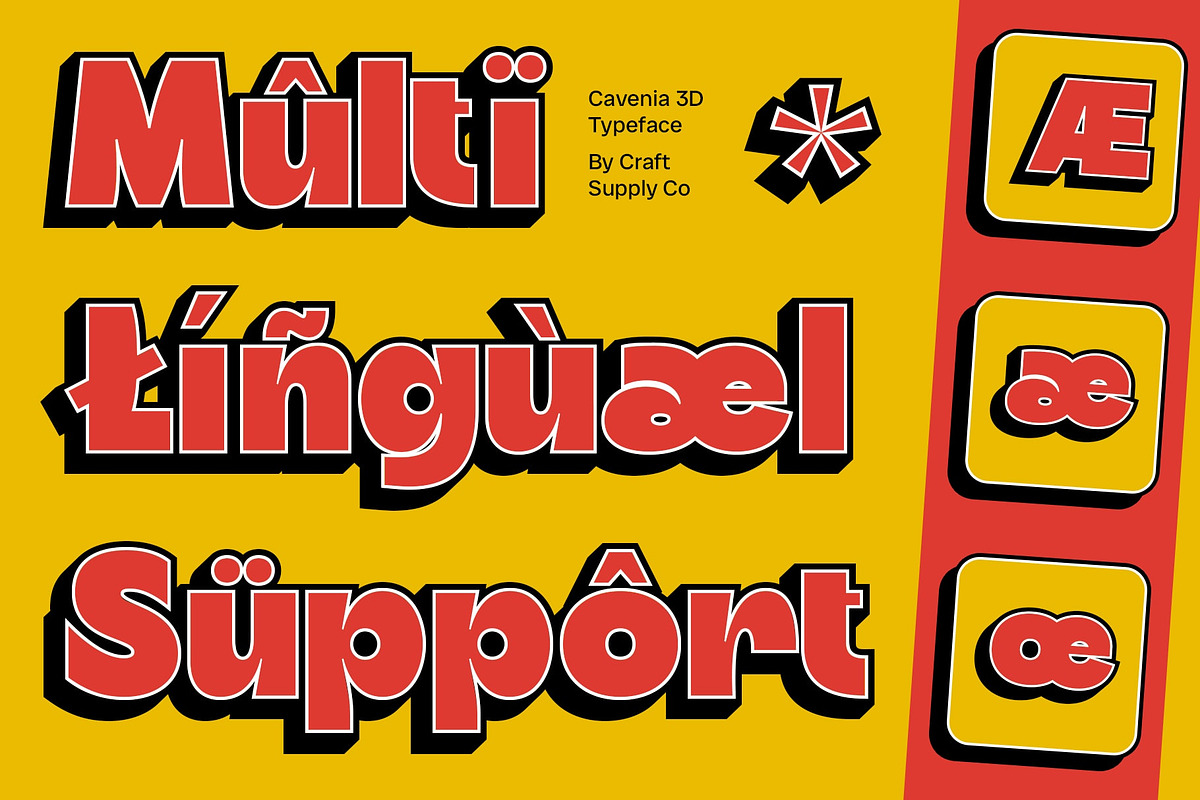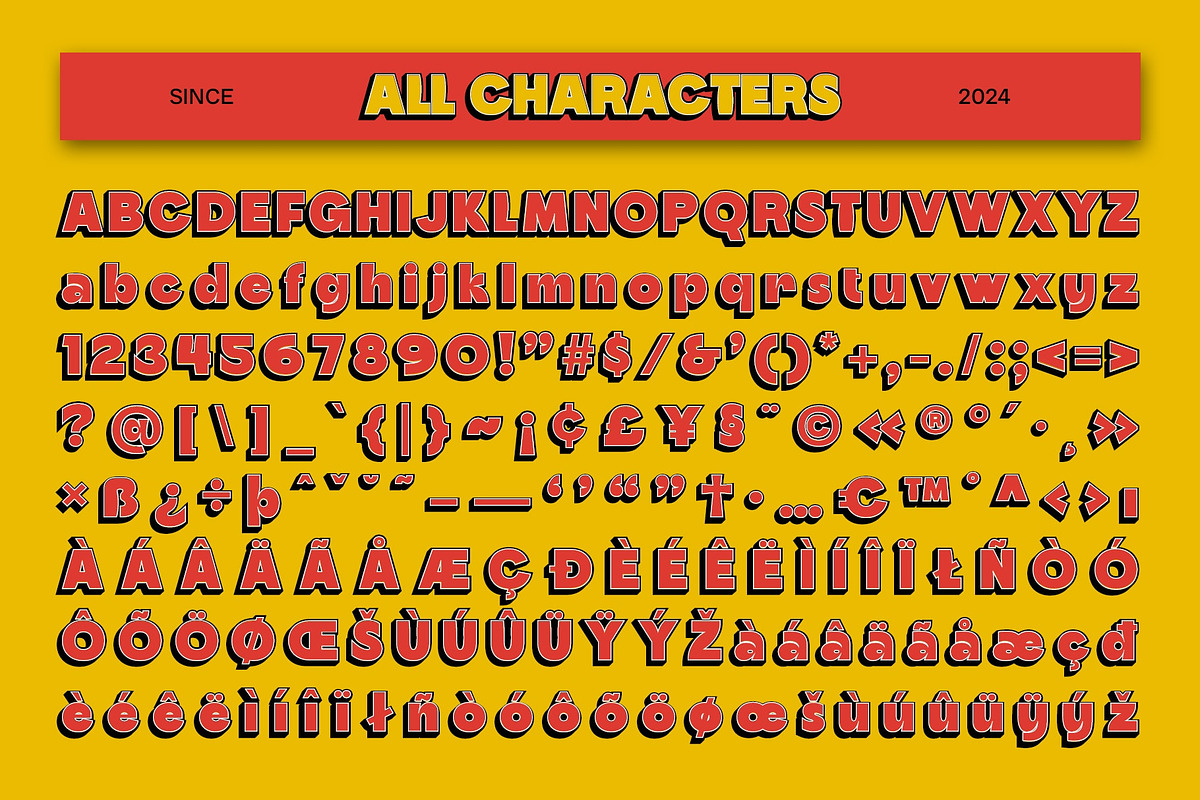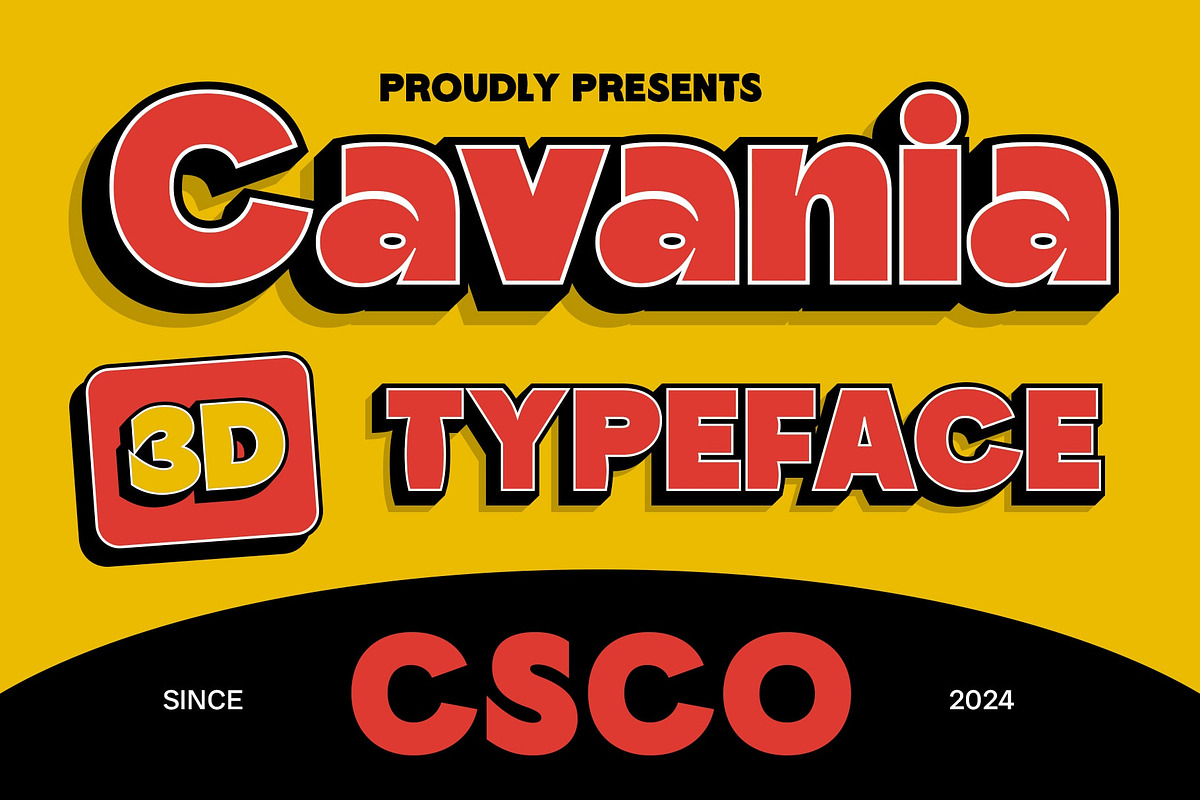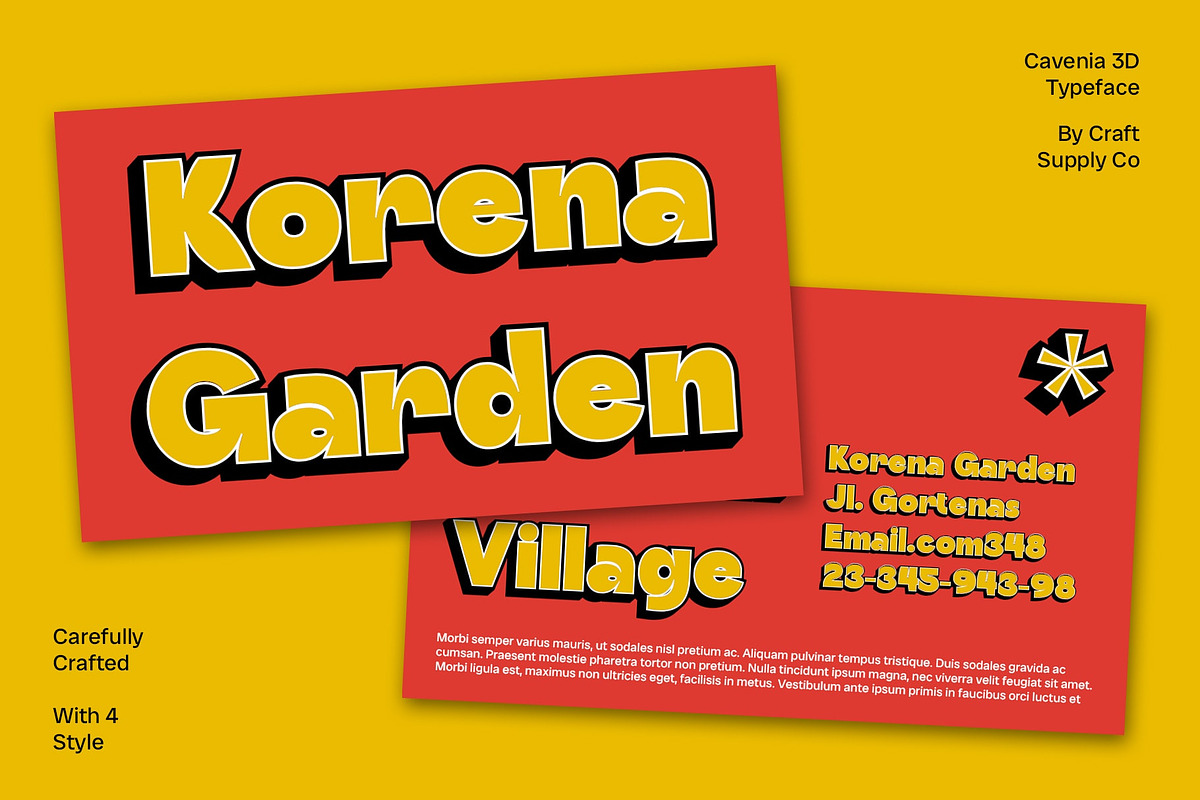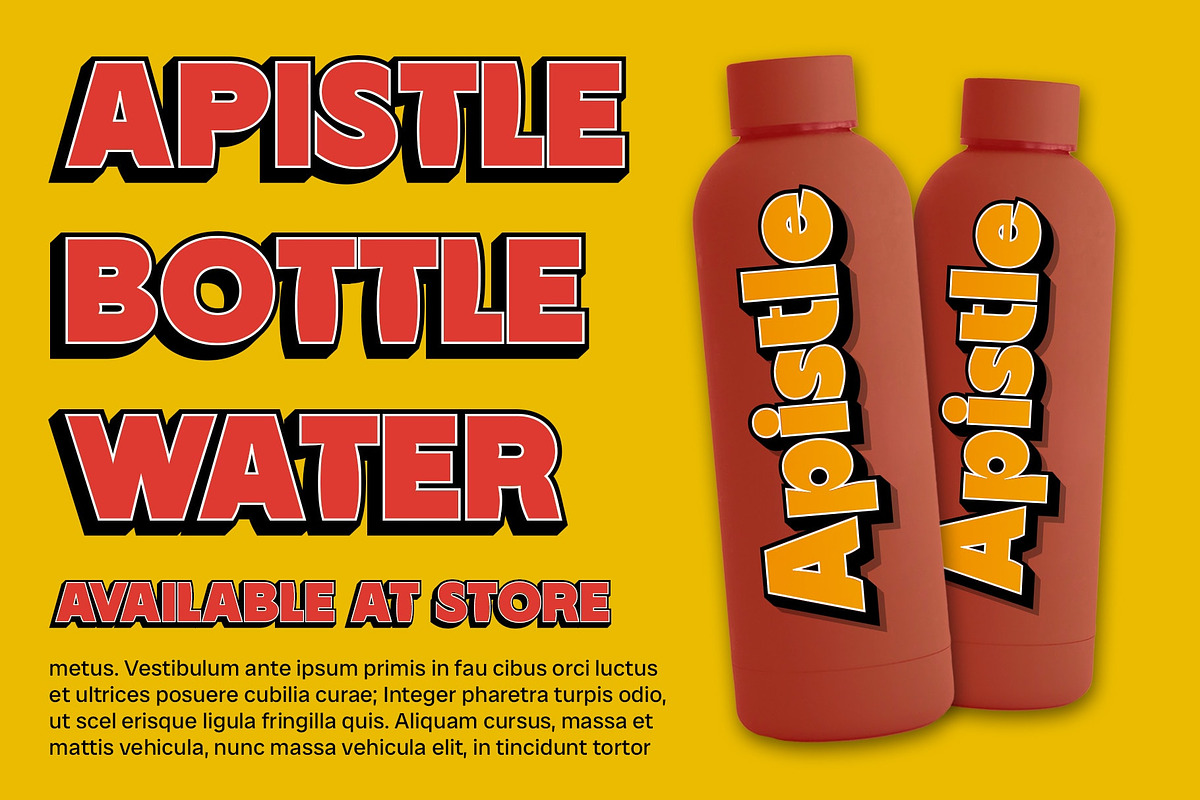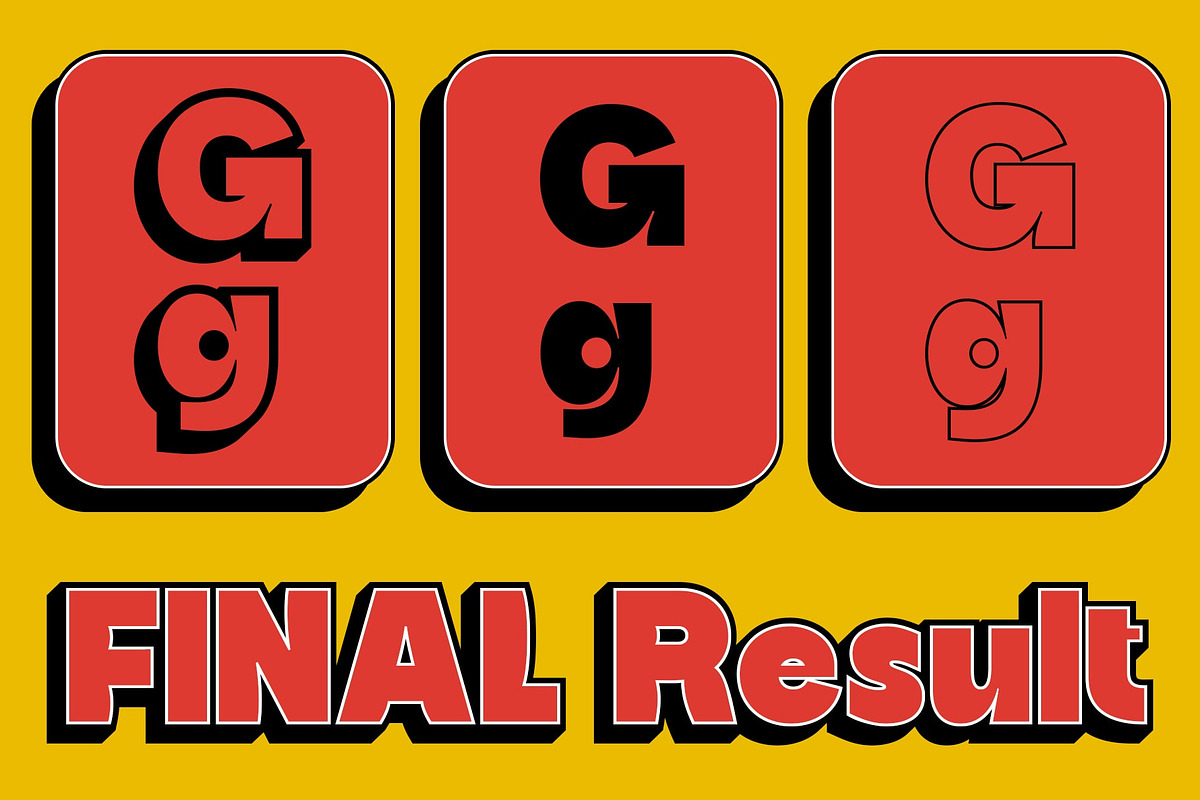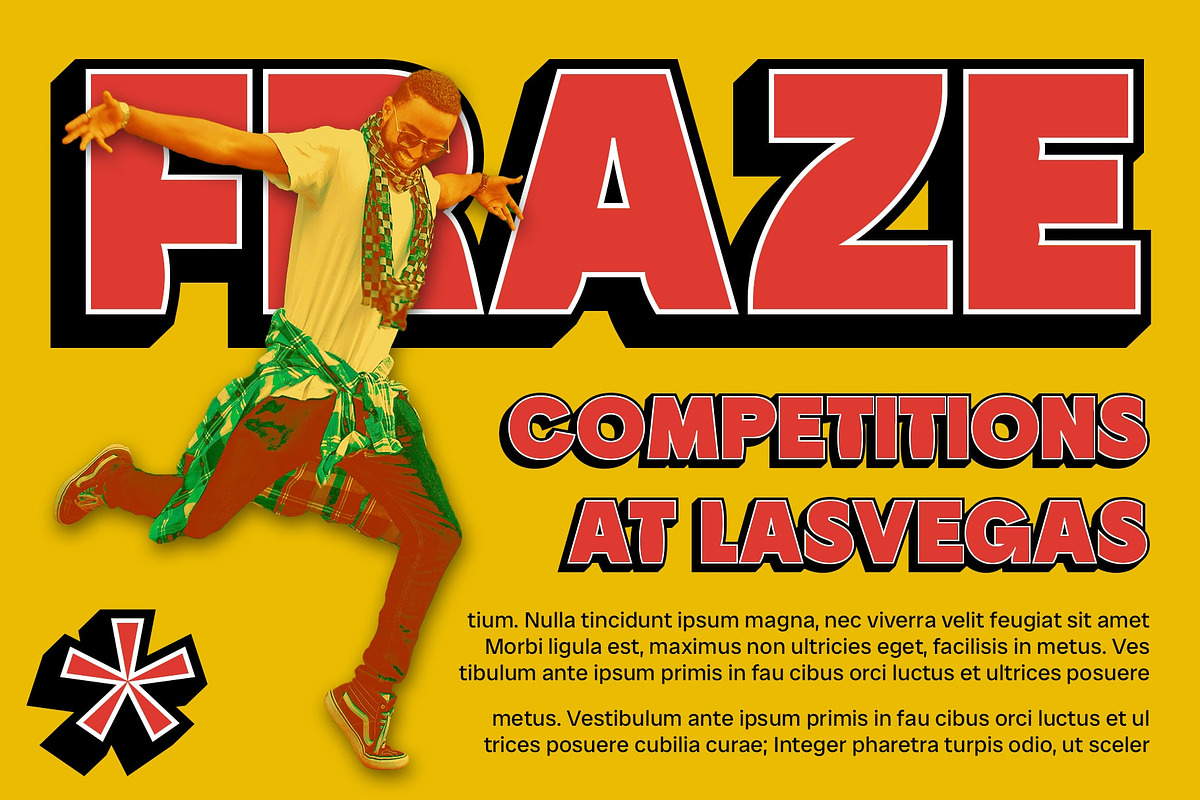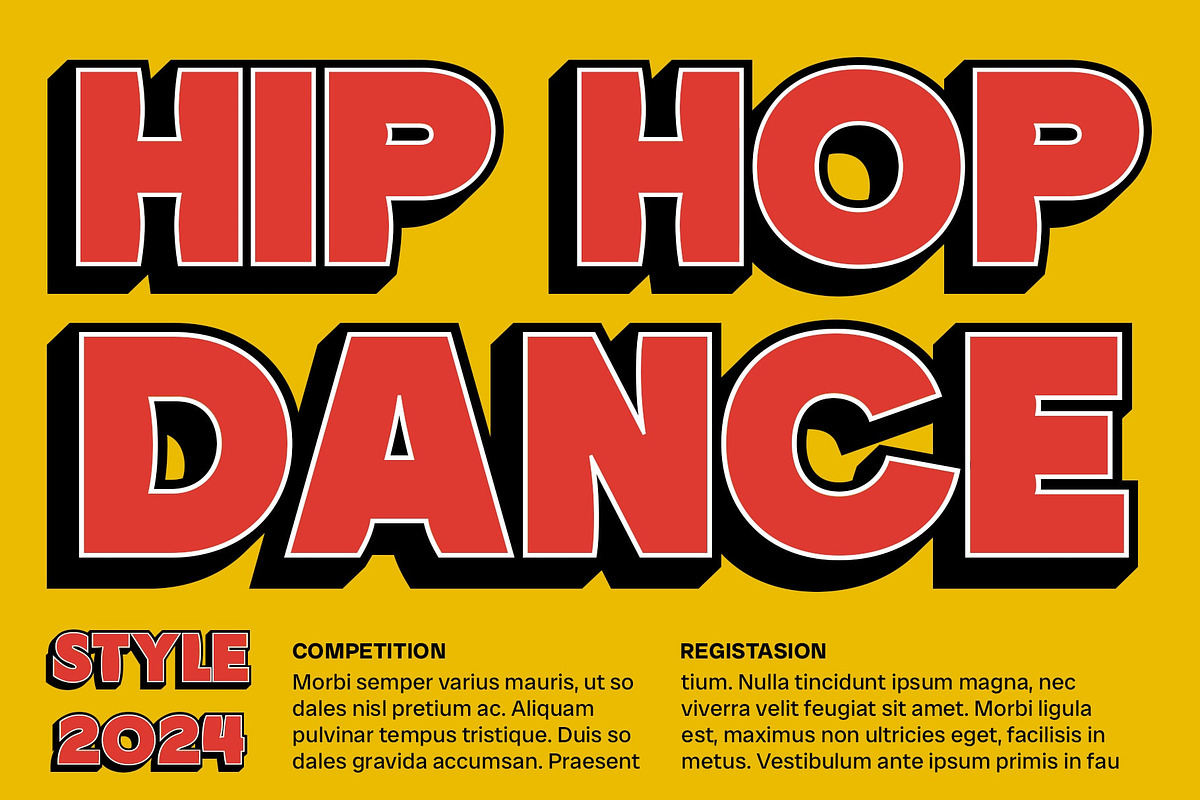
CS Cavania 3D
CS Cavania 3D: Boldness in Simplicity
3D Sans Serif Font
CS Cavania 3D is a simple, easy-to-read sans-serif font with a bold form that adds depth and dimension. Suitable for various modern designs, this font offers a balance of clarity and impact, making it ideal for projects that require a bold statement.
Versatile and Effective
Whether you’re designing a website, creating branding materials, or working on any project that demands a clear and professional look, CS Cavania 3D is the perfect font choice. Its simplicity and boldness make it highly effective in delivering messages clearly and professionally, ensuring that your designs are both impactful and easy to read.
Ideal for Modern Designs
With its bold form and modern aesthetic, CS Cavania 3D is versatile enough to be used in a wide range of design projects. From web design to branding, this font adds a touch of modernity and sophistication to any design, making it a valuable addition to your font collection.
- CS Cavania Regular
- CS Cavania Outline
- CS Cavania Extrude Right
- CS Cavania Extrude Left